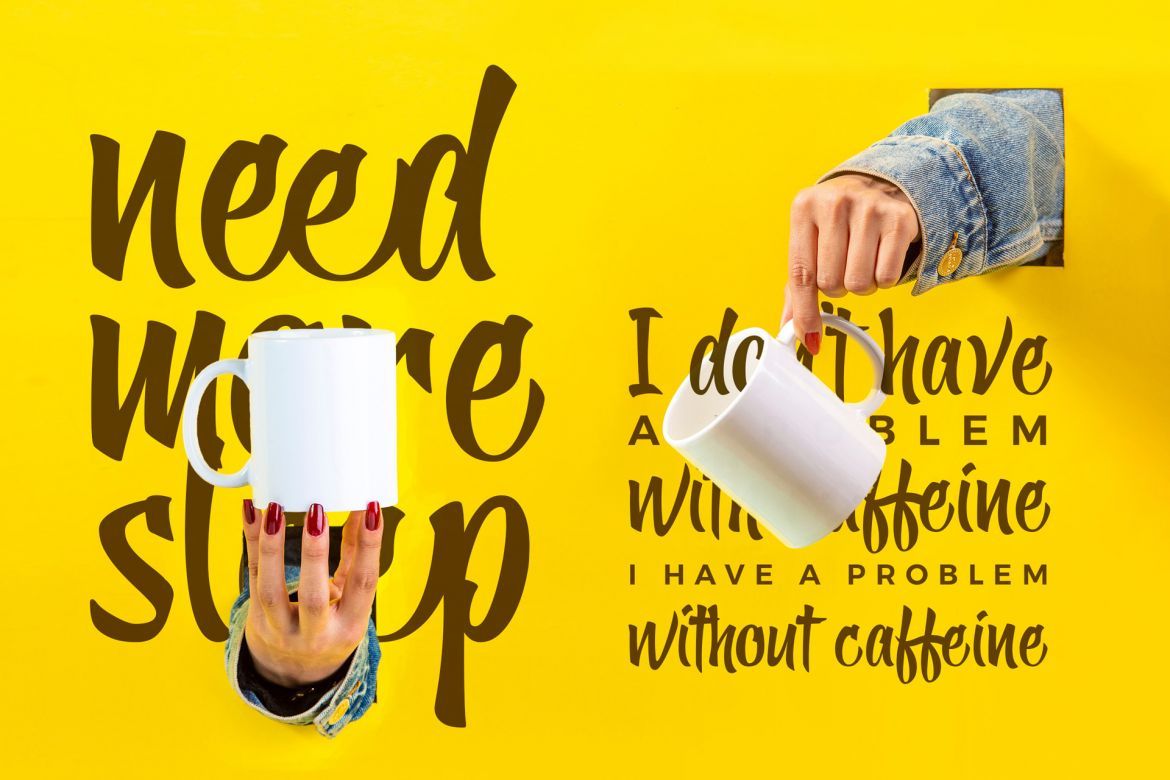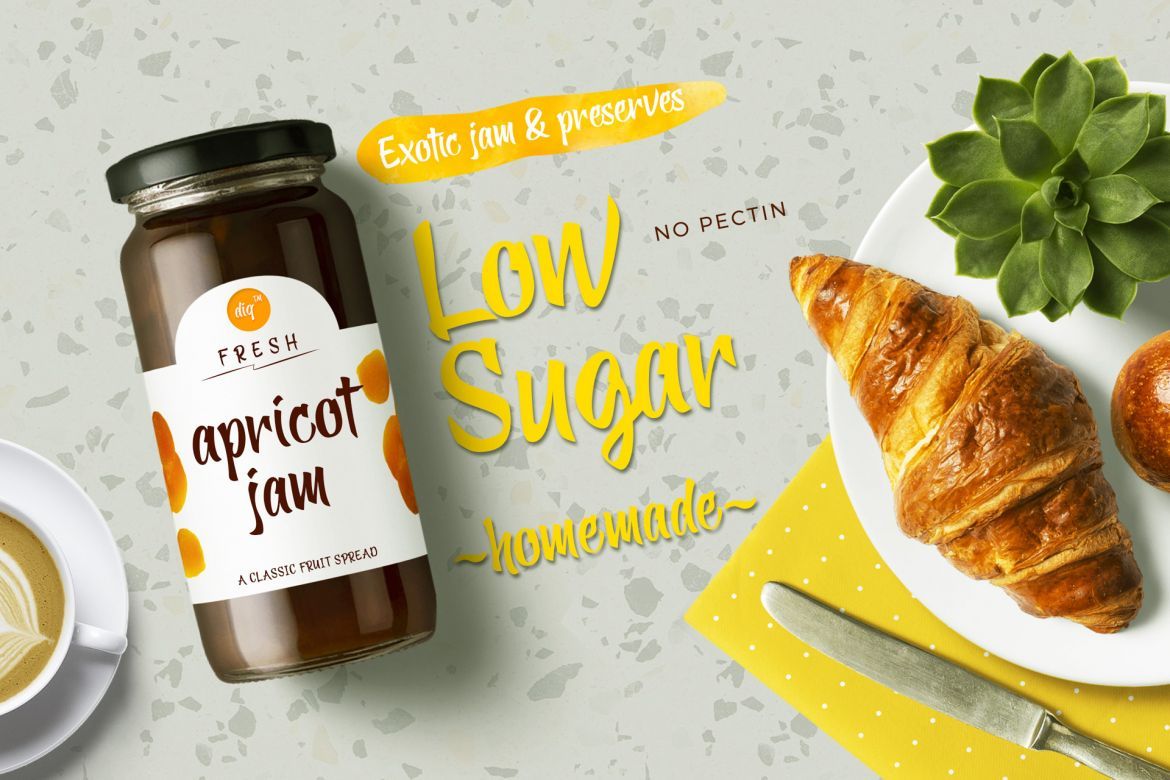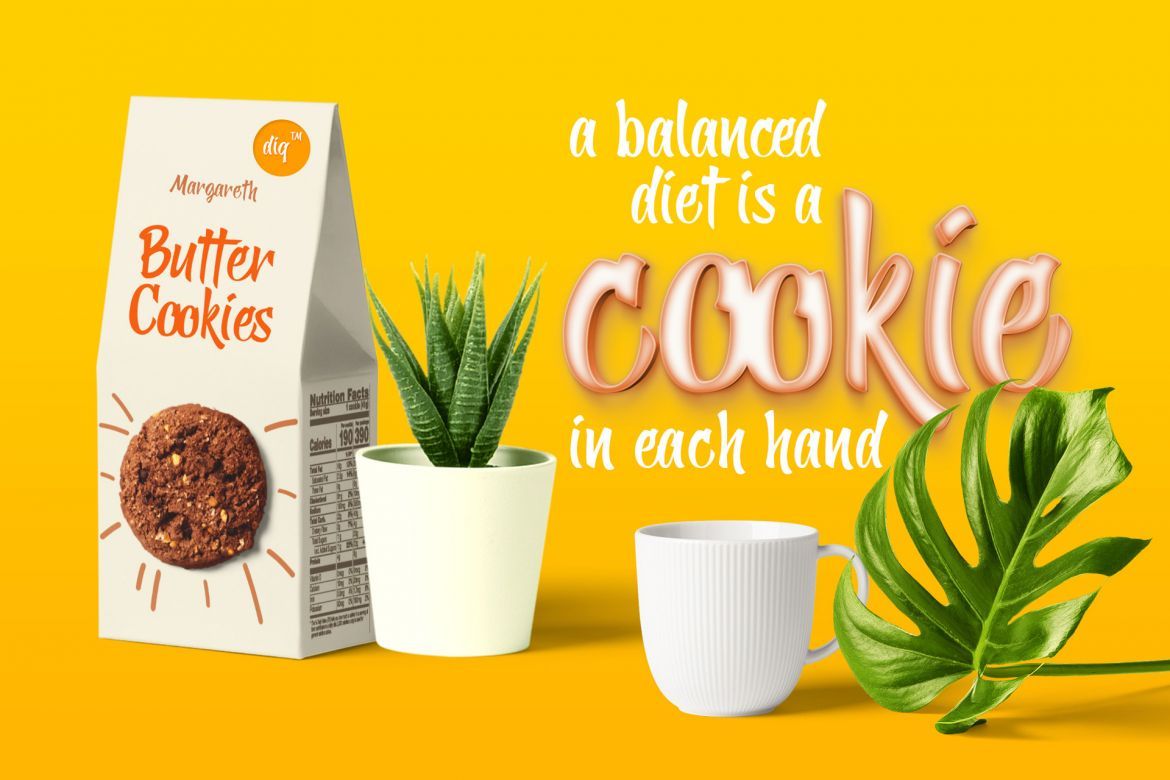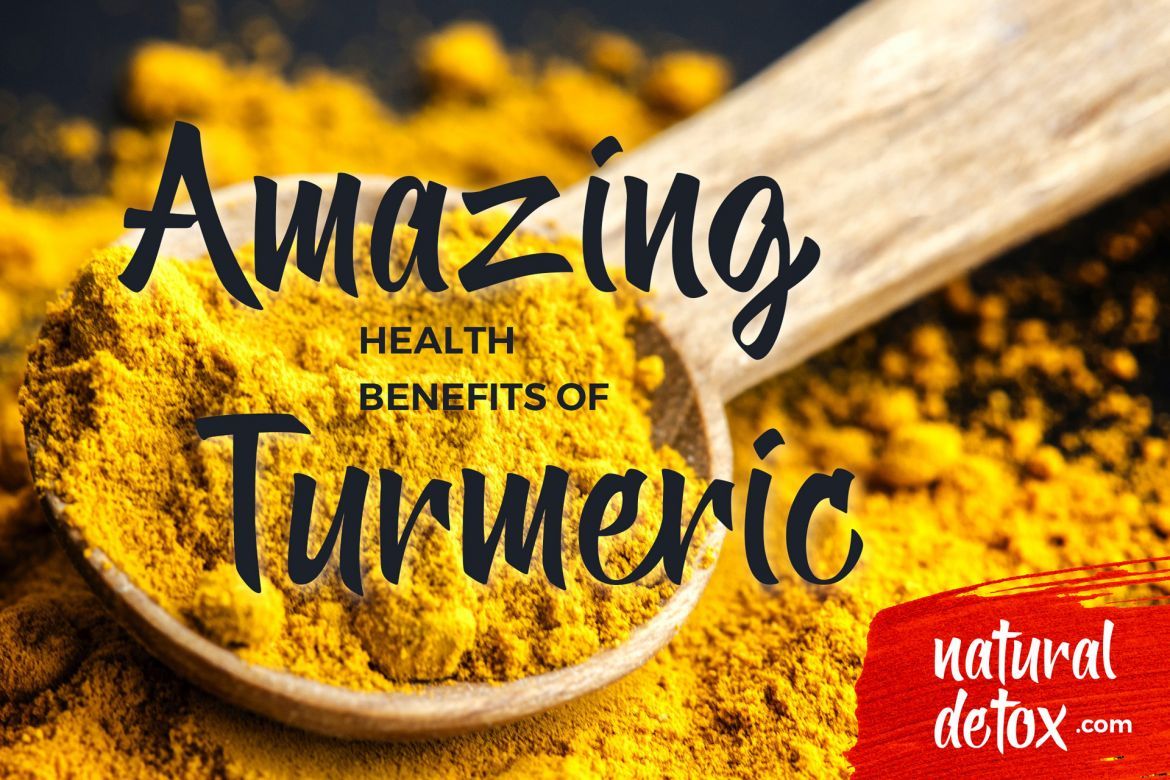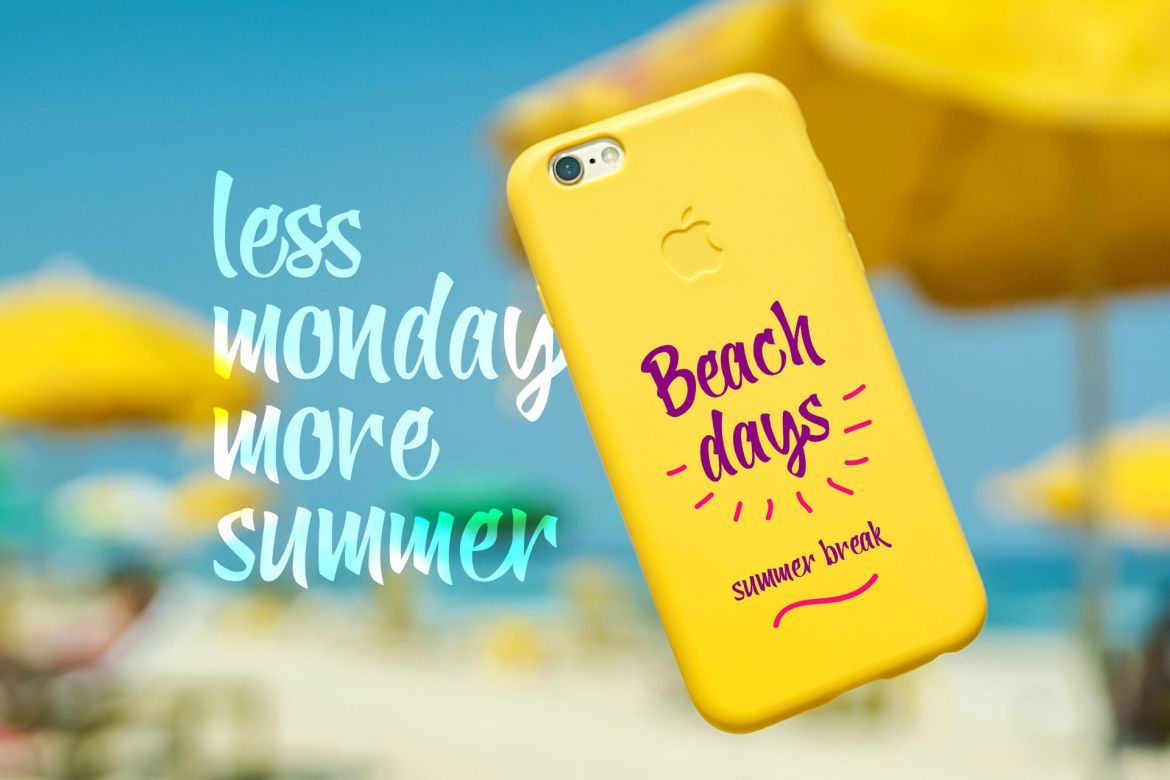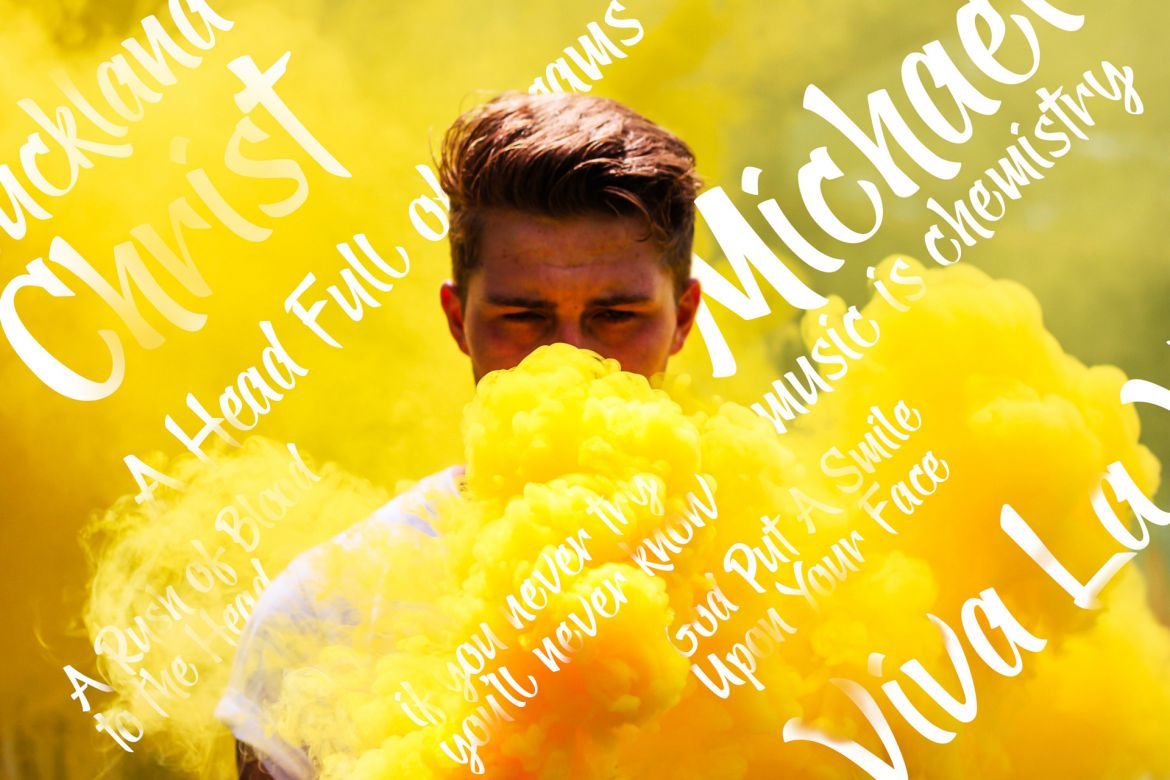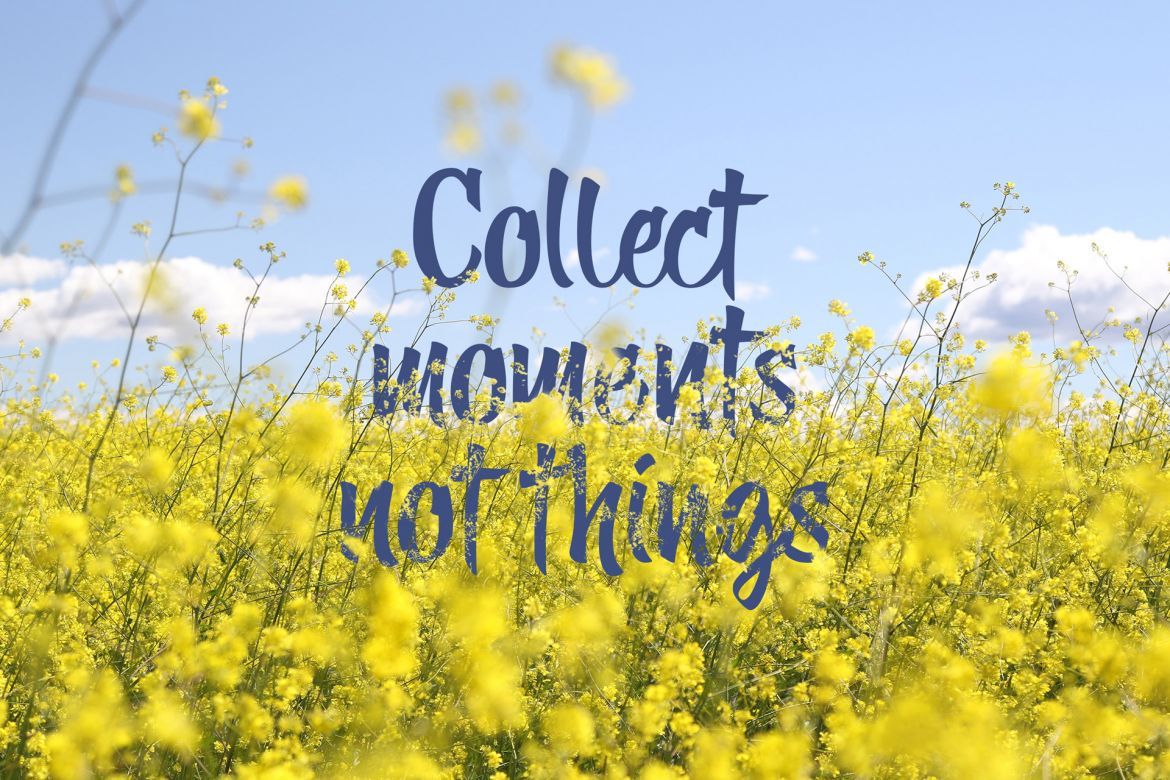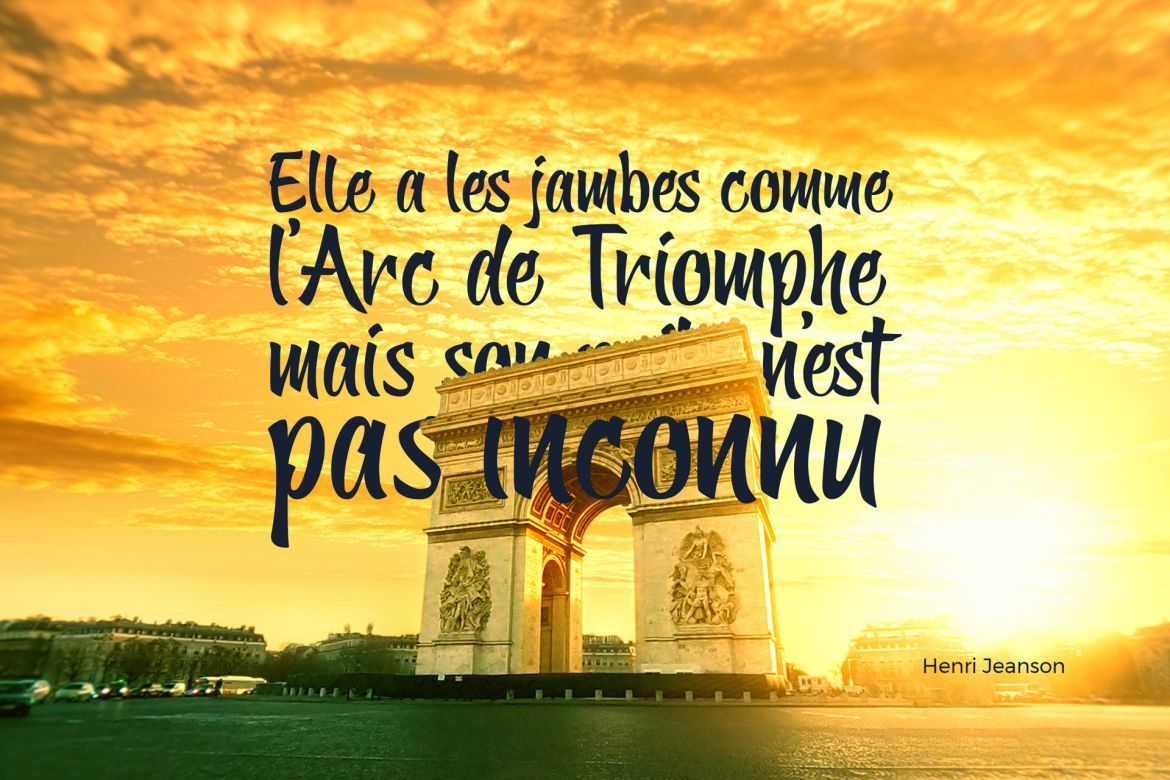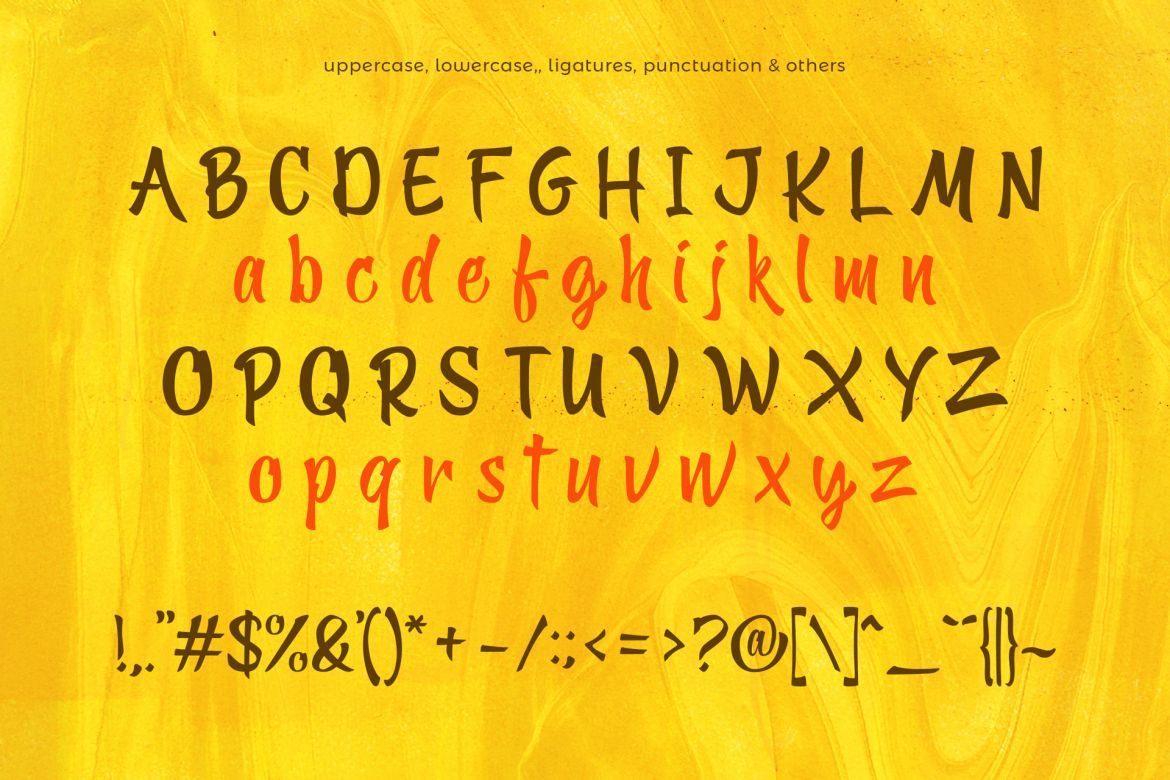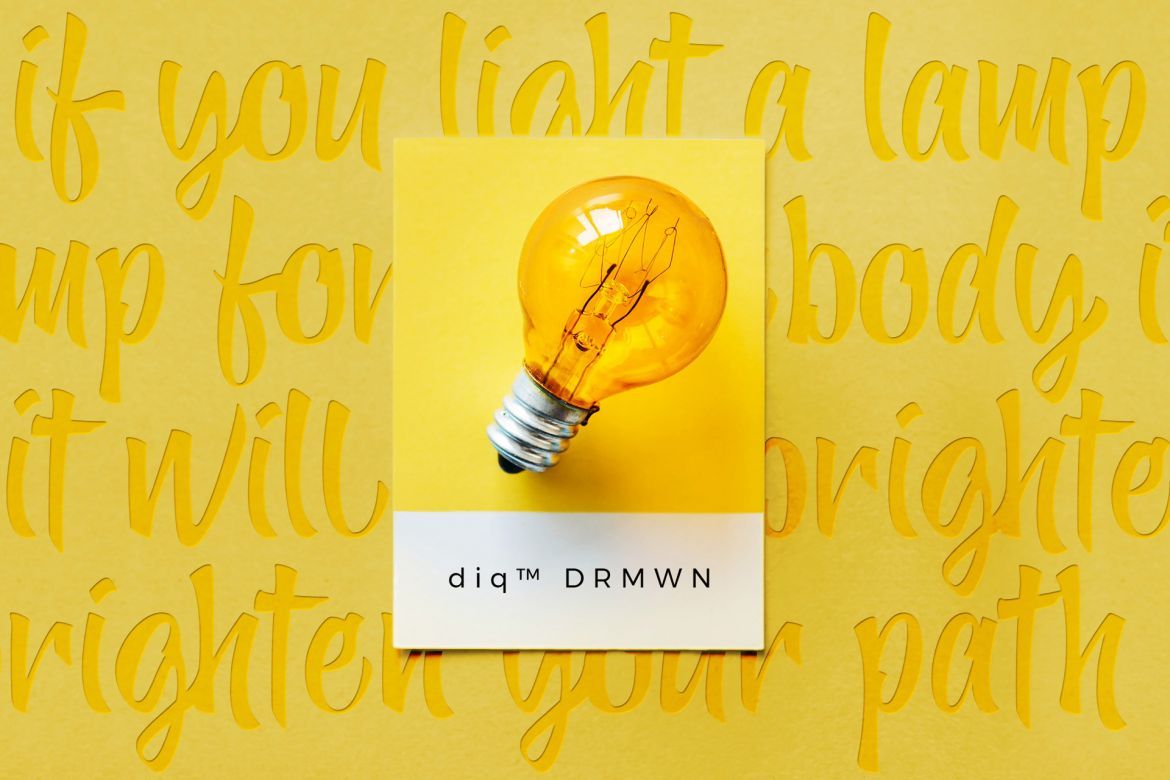
Yellow Ginger Font
Yellow Ginger – Hand lettering script font with a clear style. Comes with upper and lowercase characters, punctuation, numerals, and supports international languages. Also try the characters { } [ ] and some standard ligatures & alternates
Yellow Ginger perfectly for headers, signs, restaurant menu, product labels, print, branding, social media post, etc
• alternate, ligature, number, punctuation & symbols
• delicious font
• multi language support